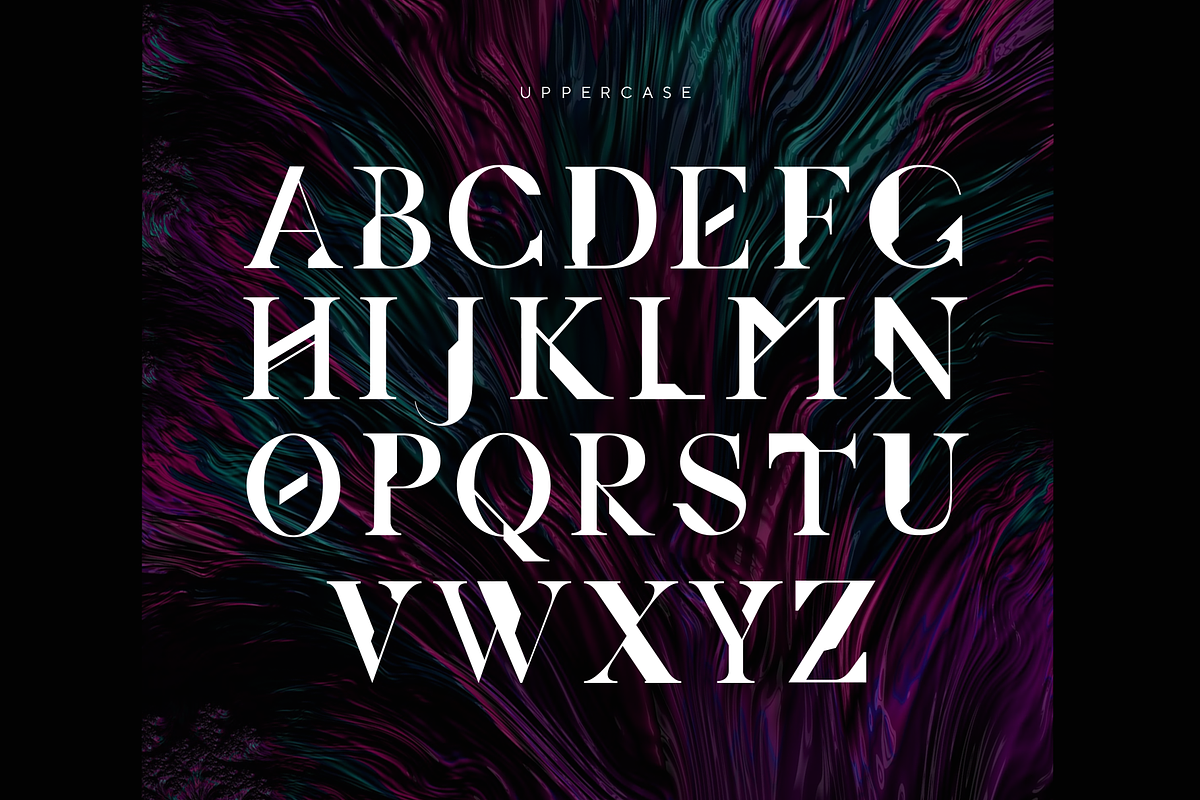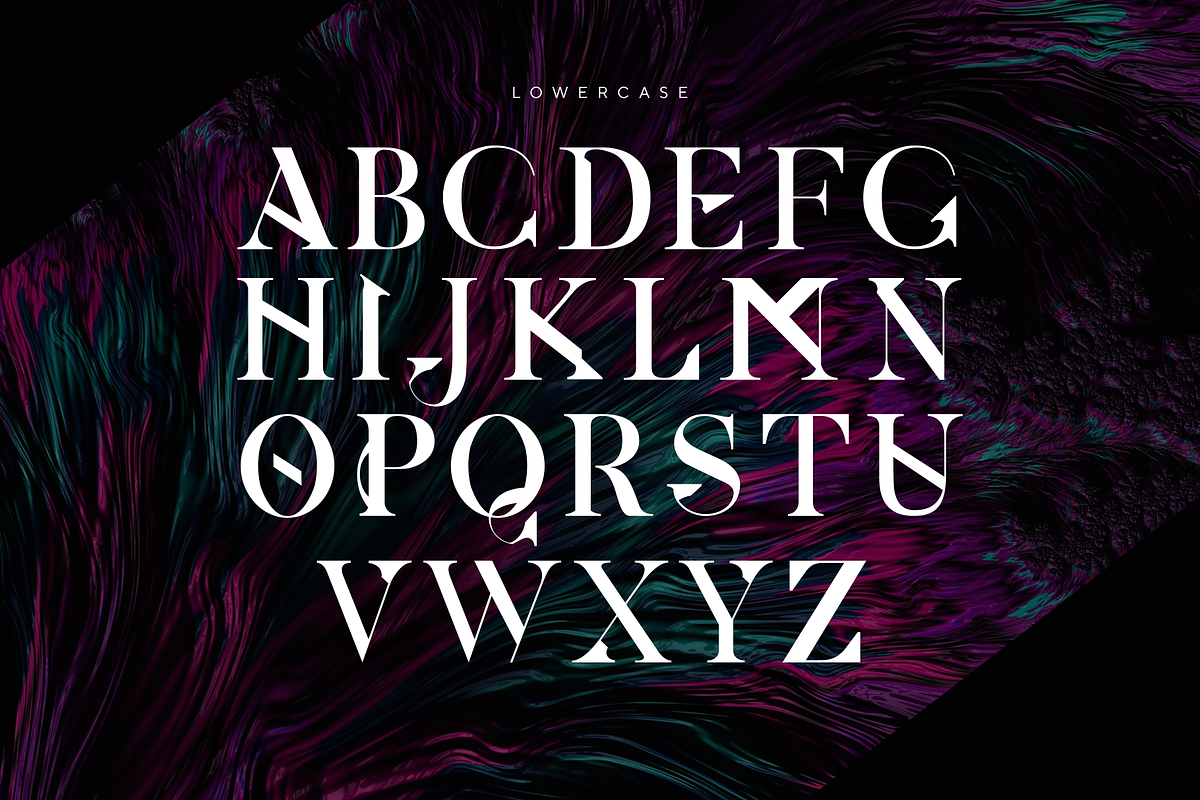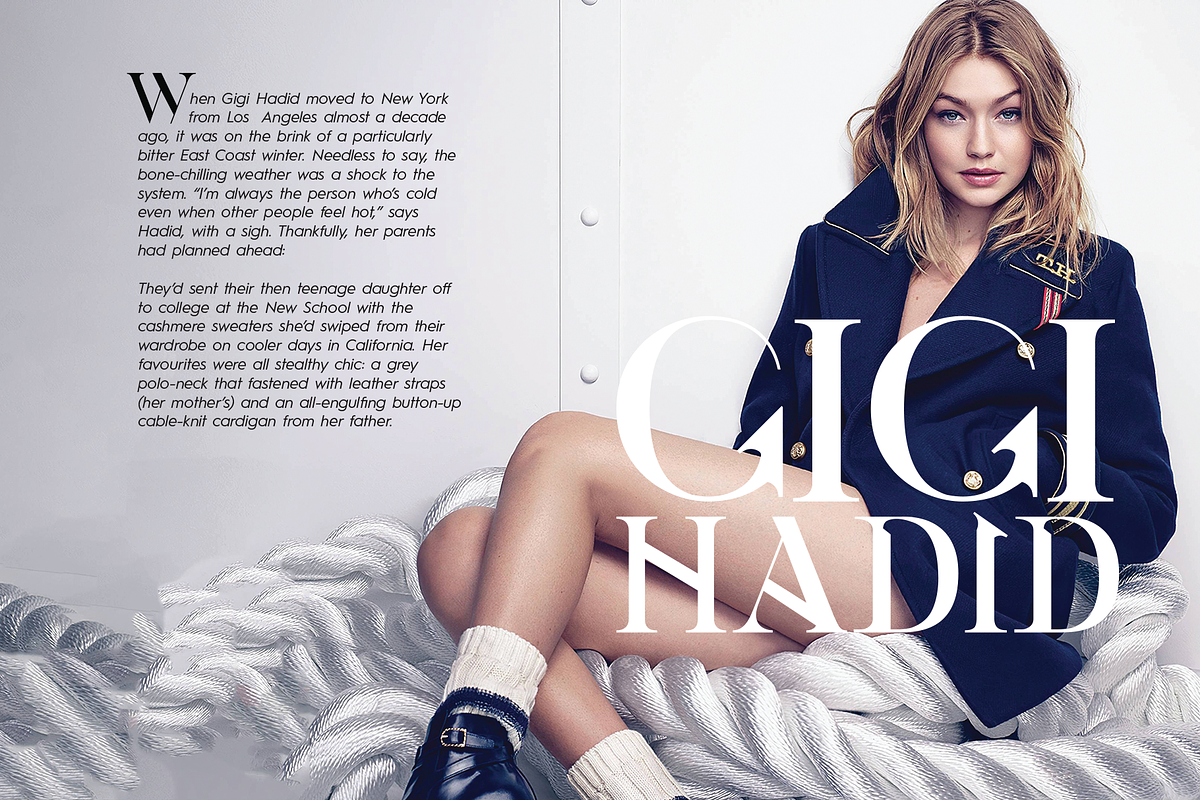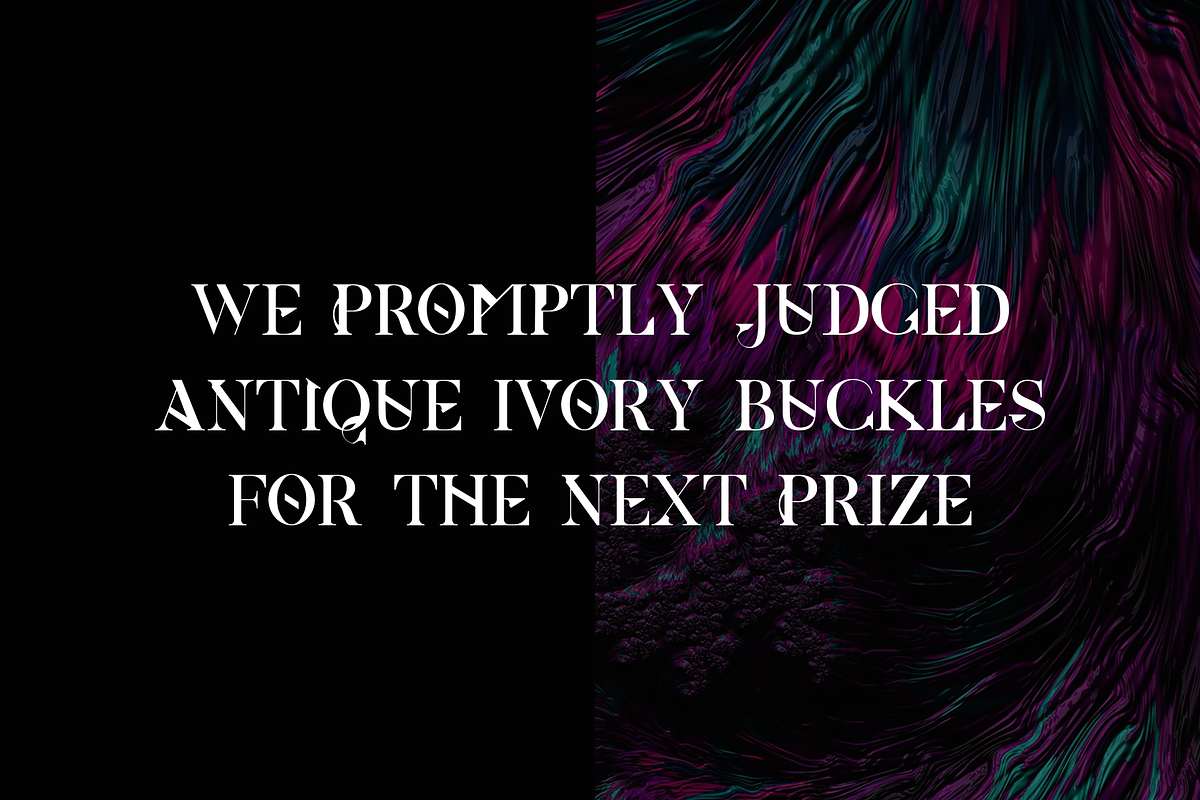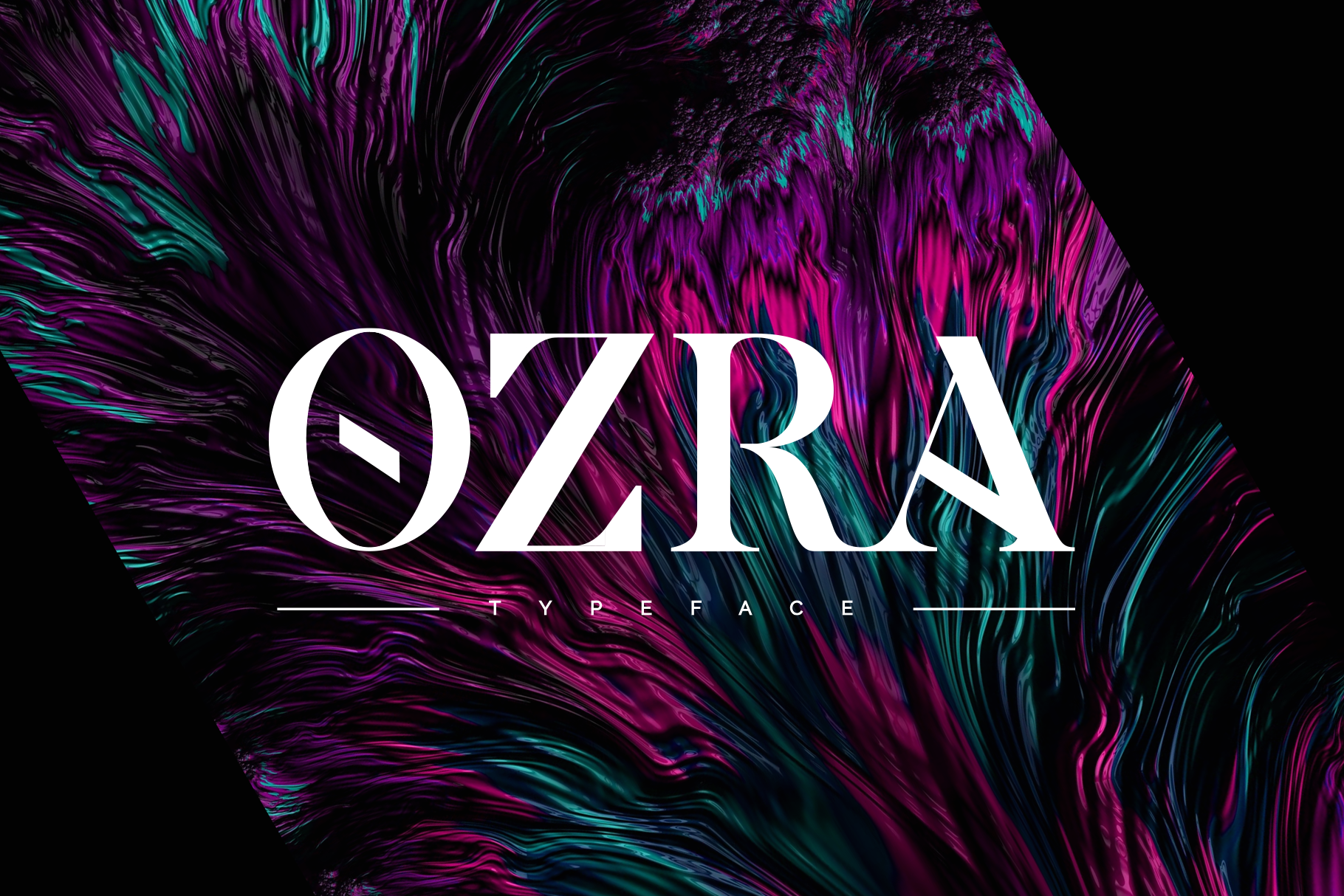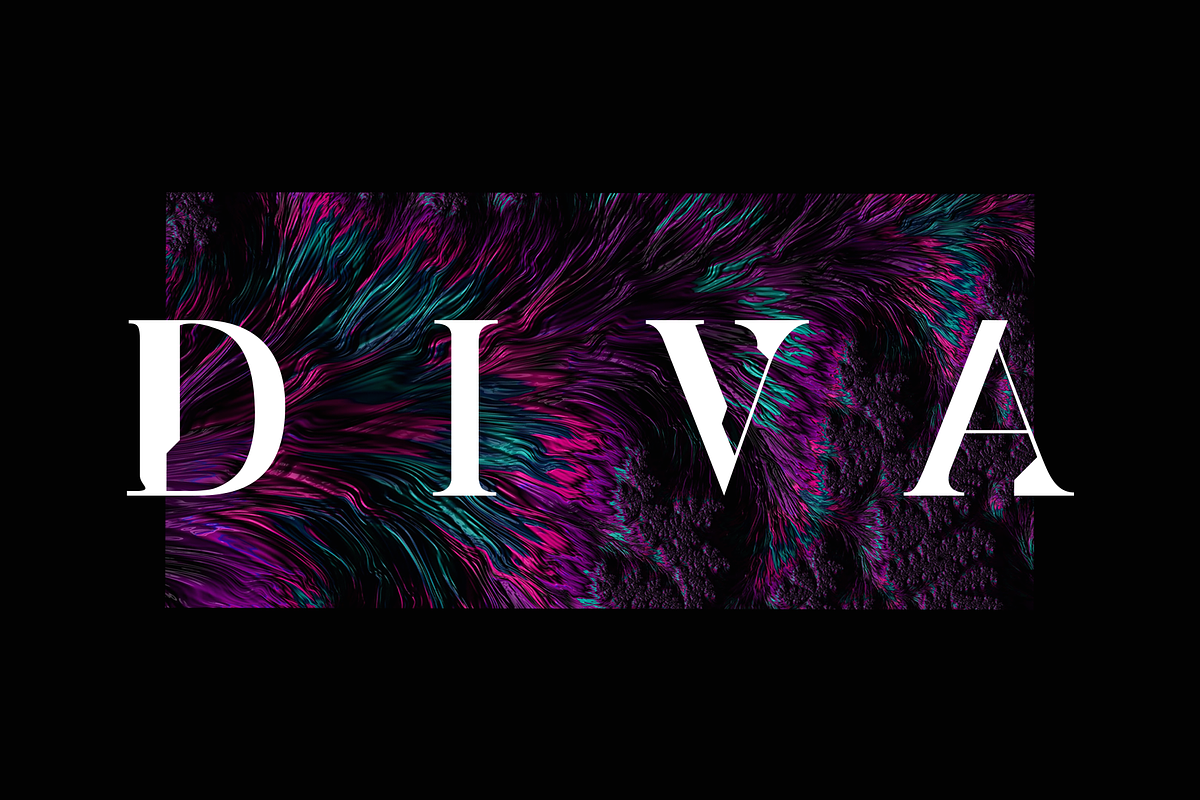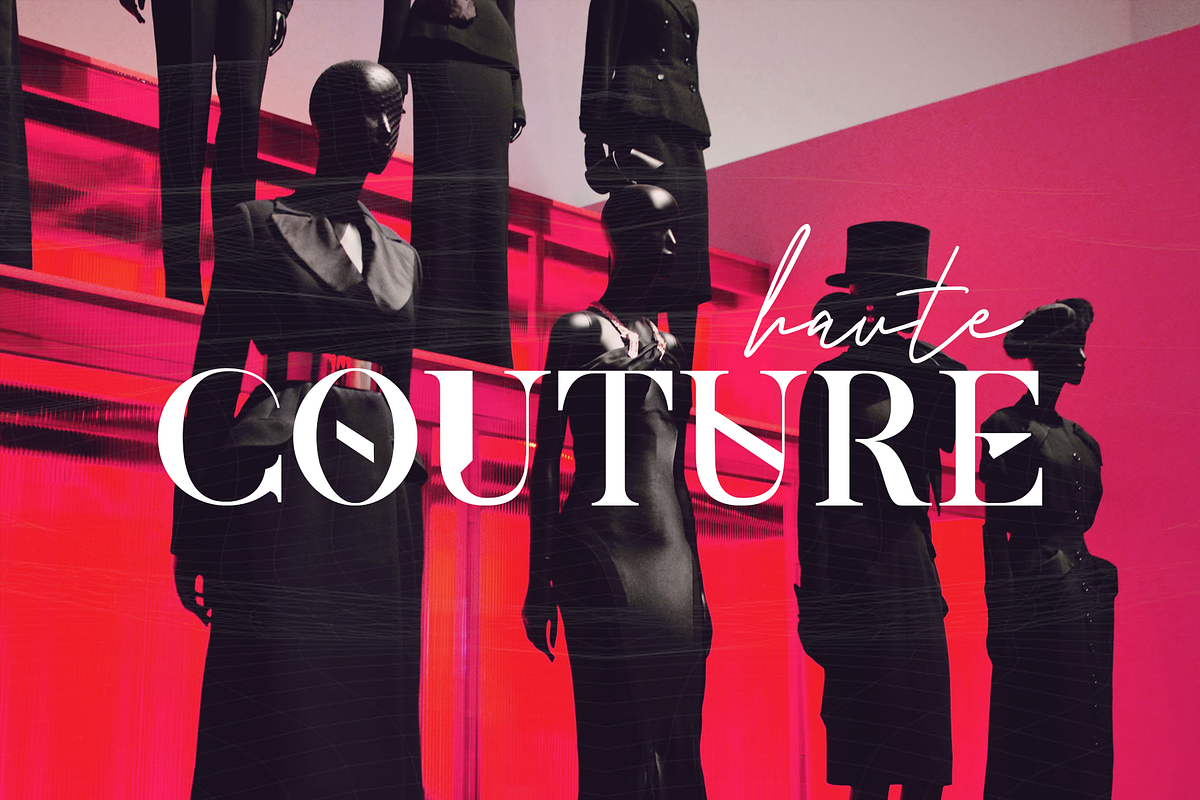
Ozra | Display Font
Ozra is a stylish neue serif typeface, inspired by everything couture. It has a unique aesthetic with uppercase/lowercase variants. Ozra can be used across various mediums including headlines, identity, fashion, magazine & editorial layouts.
Ozra includes:
- Lowerase Alt